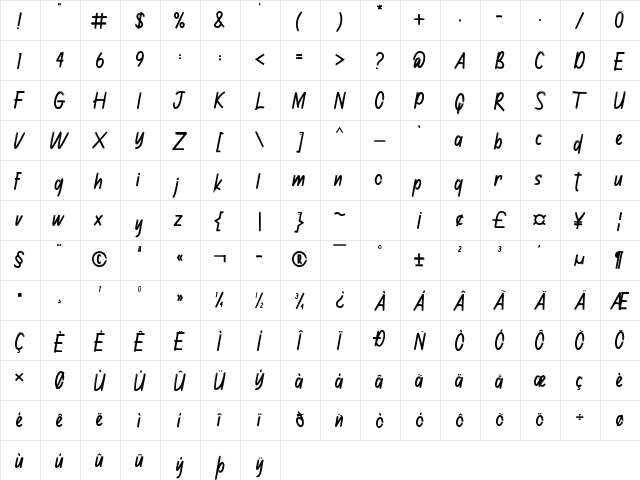
Janyss Brush Regular
Design Context for Janyss Brush Typeface
Janyss Brush flows with the natural rhythm of handwritten lettering, making it ideal for designs that call for warmth and personal expression.
Font Pairing: Combine Janyss Brush with a simple geometric sans for maximum contrast — the tension between flowing curves and clean structure is a classic typographic pairing.
Pro Tip: Pair Janyss Brush with a clean sans-serif for supporting text. The contrast between fluid script and geometric structure creates an elegant typographic hierarchy.